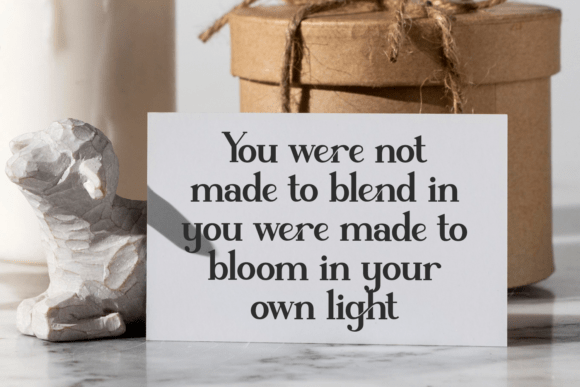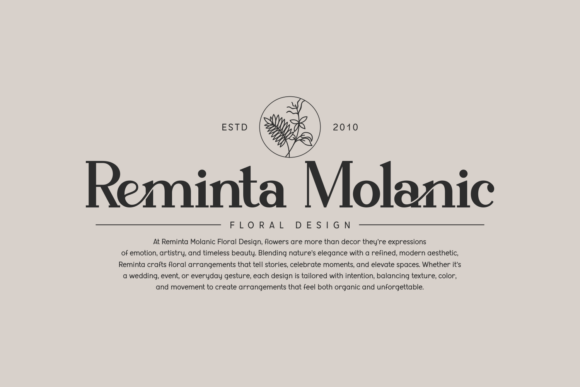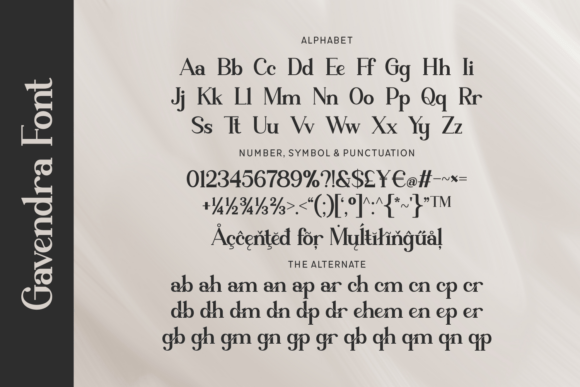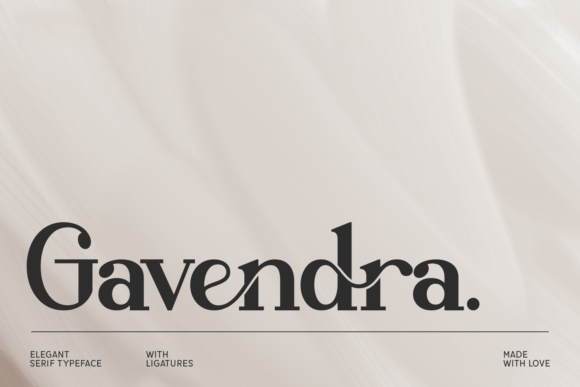
Gavendra Font: Elevate Your Designs with Timeless Elegance and Modern Sophistication
In the world of typography, a font can make or break a design. For designers and crafters seeking to infuse their projects with a touch of sophistication and elegance, Gavendra Font is an exceptional choice. This refined serif typeface strikes a perfect balance between timeless charm and modern creativity, making it an ideal selection for a wide range of applications, from branding and editorial layouts to packaging and luxury logos.
The Distinctive Characteristics of Gavendra Font
Gavendra Font is distinguished by its elegant ligatures and flowing letterforms, which bring a refined personality to any design. The font’s smooth curves and distinctive serifs create a harmonious rhythm that feels both classy and contemporary. This unique blend of classic and modern elements makes Gavendra an excellent choice for designers looking to create visually stunning and memorable designs.
Key Features of Gavendra Font
• Elegant Ligatures: Gavendra Font features beautiful ligatures that add an extra layer of sophistication to your designs.
• Flowing Letterforms: The font’s flowing letterforms create a sense of harmony and balance, making it perfect for editorial layouts and luxury logos.
• Smooth Curves: Gavendra’s smooth curves add a touch of elegance to any design, while its distinctive serifs provide a sense of refinement.
• Timeless Charm: The font’s classic elements ensure that your designs will remain timeless and relevant for years to come.
• Modern Creativity: Gavendra’s modern twist makes it an excellent choice for designers looking to create fresh and innovative designs.
Applications of Gavendra Font
Gavendra Font is an incredibly versatile typeface that can be used in a wide range of applications, including:
• Branding: Use Gavendra to create sophisticated and memorable brand identities that reflect your company’s values and personality.
• Editorial Layouts: The font’s elegant ligatures and flowing letterforms make it perfect for use in editorial layouts, such as magazines, newspapers, and books.
• Packaging: Gavendra’s refined personality makes it an excellent choice for packaging design, adding a touch of luxury and sophistication to any product.
• Luxury Logos: The font’s distinctive serifs and smooth curves create a sense of high-end quality, making it ideal for luxury logos and branding.
Why Choose Gavendra Font?
With so many fonts available, why choose Gavendra? Here are just a few reasons why Gavendra Font stands out from the crowd:
• Unique Blend of Classic and Modern Elements: Gavendra’s blend of timeless charm and modern creativity makes it a truly unique and versatile font.
• High-Quality Design: The font’s smooth curves and distinctive serifs are meticulously designed to ensure that your designs look professional and polished.
• Ease of Use: Gavendra Font is easy to use and pairs well with a wide range of other fonts, making it simple to incorporate into your designs.
In conclusion, Gavendra Font is an exceptional choice for designers and crafters seeking to elevate their designs with timeless elegance and modern sophistication. Its unique blend of classic and modern elements, combined with its elegant ligatures and flowing letterforms, make it an ideal selection for a wide range of applications. Whether you’re creating branding, editorial layouts, packaging, or luxury logos, Gavendra Font is sure to bring a touch of refinement and sophistication to your designs.